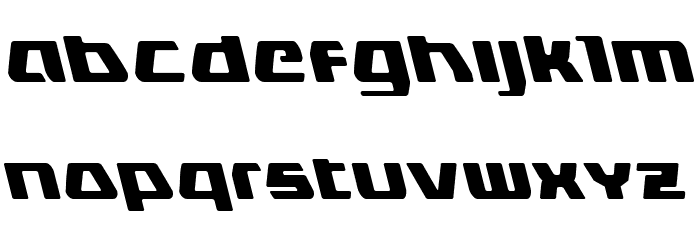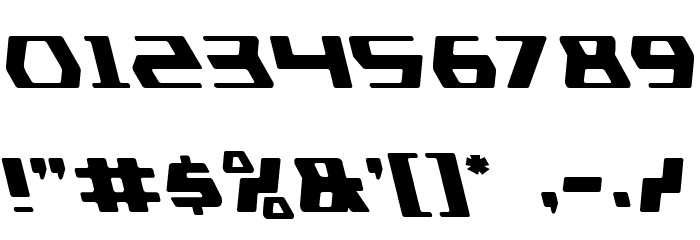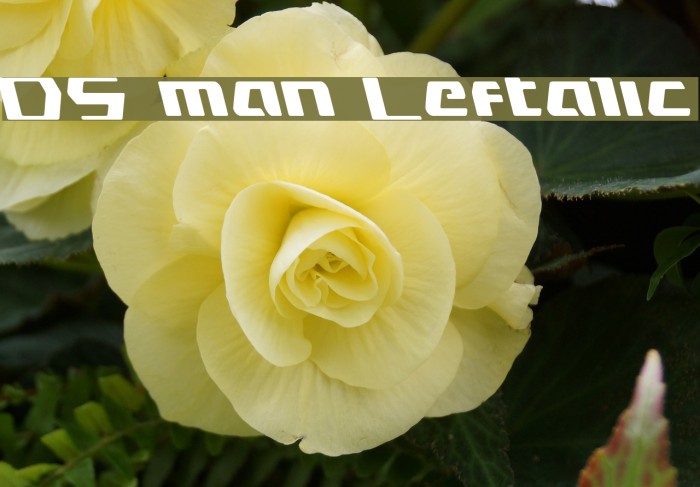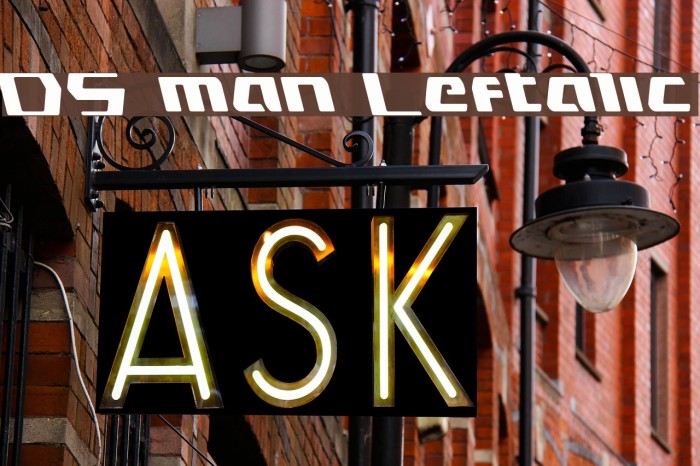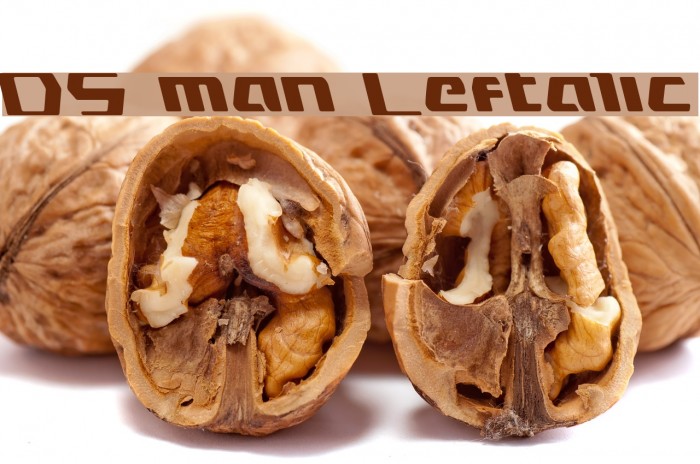
DS man Leftalic Font
This font features a bold and angular design with a futuristic and dynamic appearance. The characters are slightly slanted, giving a sense of motion and energy. The uppercase and lowercase letters maintain a consistent style, with sharp edges and geometric forms. The numerals and special characters follow the same aesthetic, ensuring uniformity across all glyphs. The overall look is modern and edgy, suitable for projects that require a strong visual impact.
- Proposed Projects: Ideal for sci-fi themed designs, video game titles, technology branding, and sports team logos.